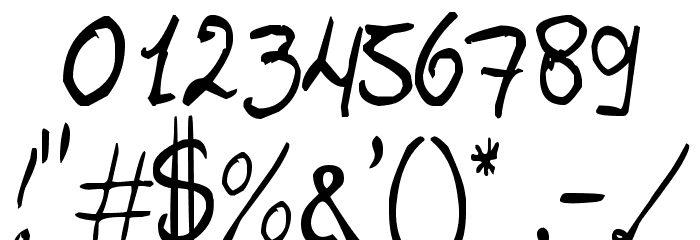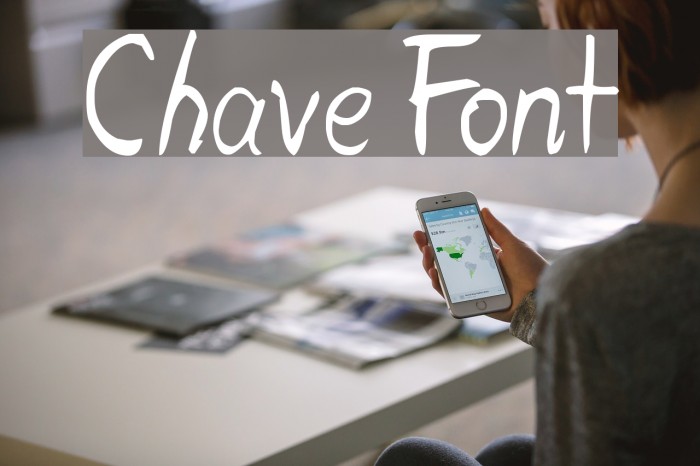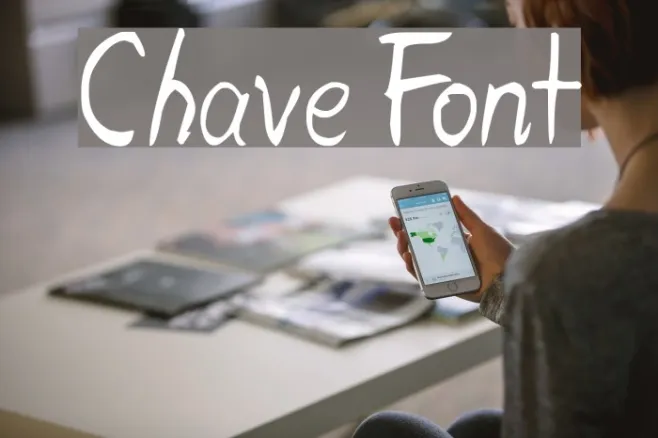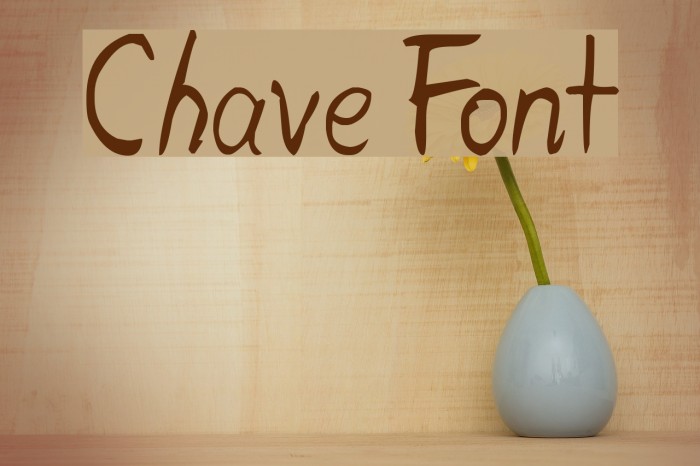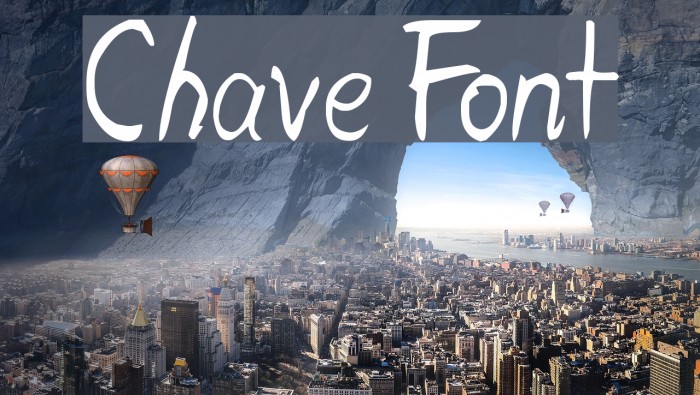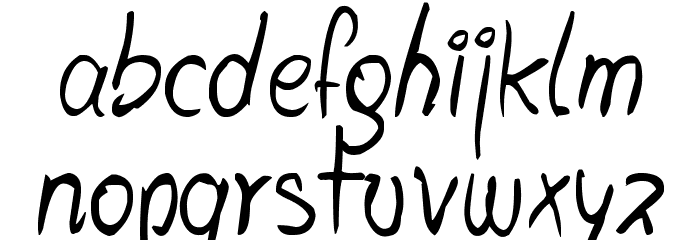
Chave Font
Chave Description
This font features a playful and casual handwritten style, characterized by its irregular and dynamic strokes. The letters have a slightly tilted appearance, giving them a lively and informal feel. The uppercase and lowercase letters maintain a consistent style, with rounded edges and varying stroke widths that add to the font's charm. The numerals and special characters are crafted with the same whimsical touch, ensuring a cohesive look across all glyphs. This font's unique personality makes it ideal for projects that require a personal and approachable aesthetic.
| Overall Style | Casual |
| Use Case | Headlines, Informal text, Creative projects |
| Proposed Projects | Great for greeting cards, children's books, personal blogs, and informal branding. |